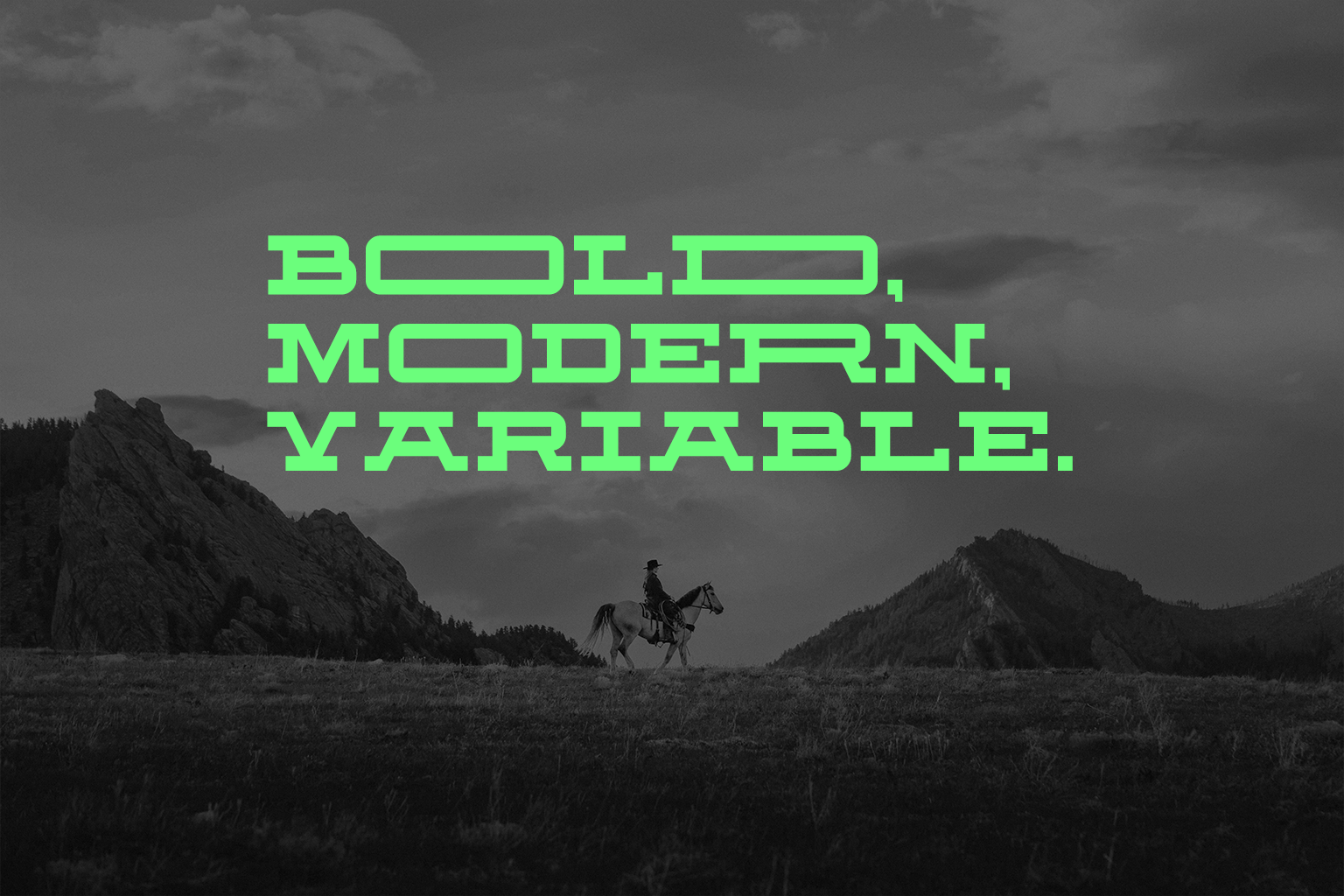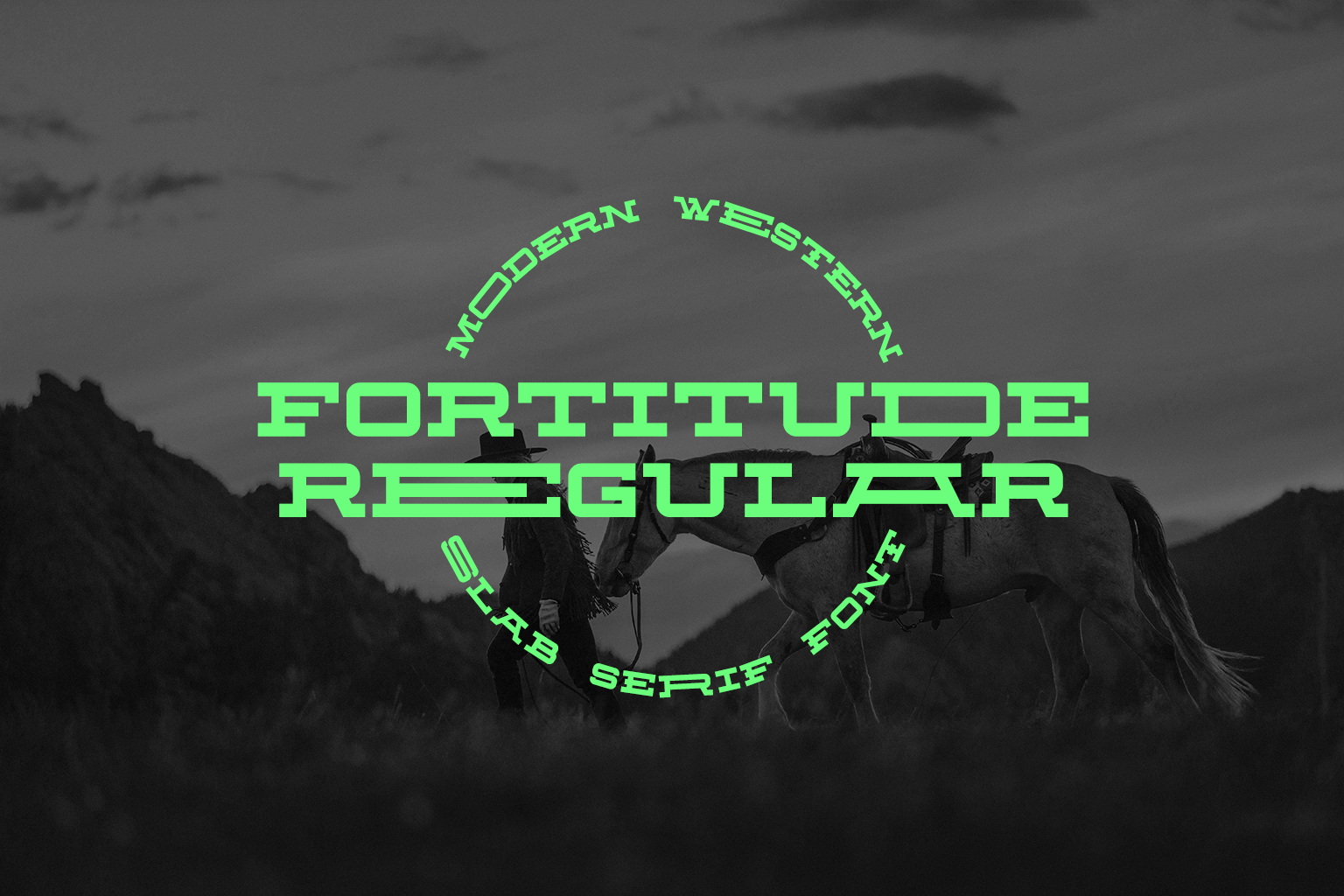
Fortitude Regular
About the Typeface
Fortitude is an expanded slab serif typeface with a rustic, western vibe. We pulled out all the stops on Fortitude and added a ton of punctuation to make the typeface as useful as possible.